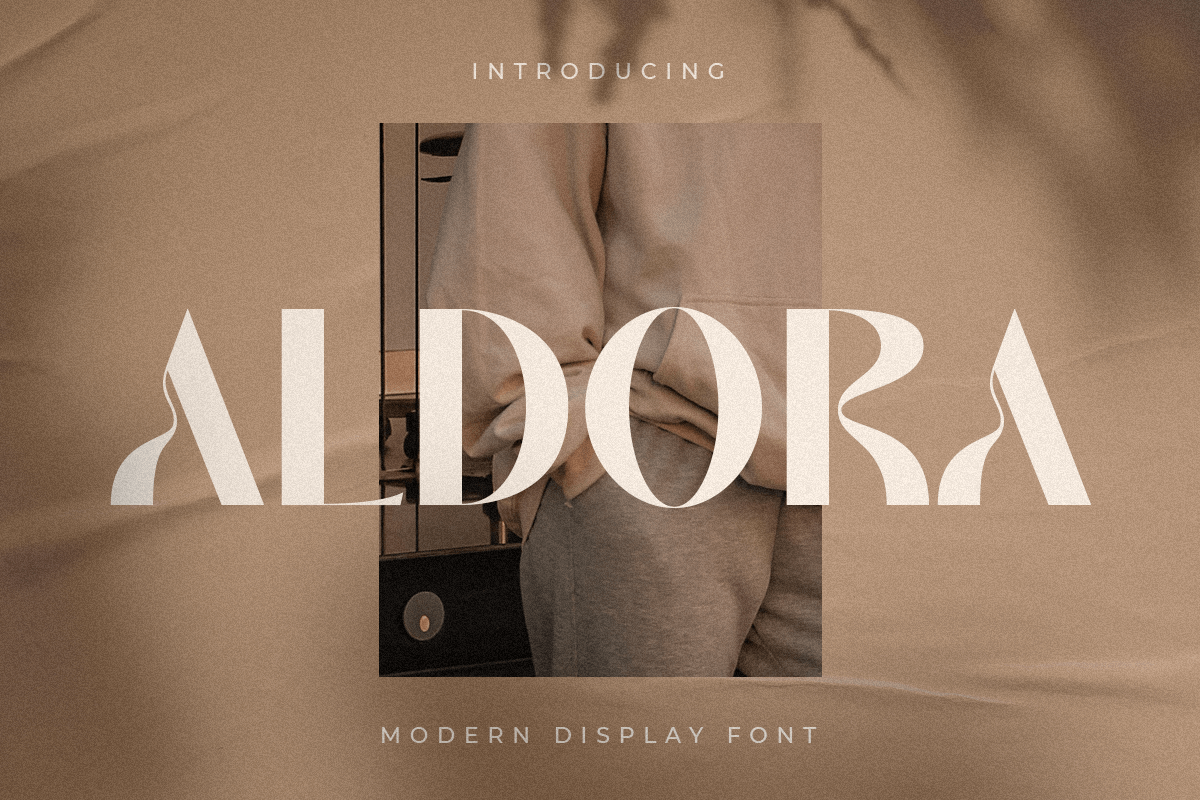
Aldora
A Modern Elegant Display Font that we created special for elegant and Fashion branding needs, with extra characters alternate in unique shape will be ready to add value of your brand. It so nice to leverage designer or product owner that need solutions to make their design look more classy and modern. And specially for this font, We prepared any alternate characters to help you create unlimited variations for your creative needs.
Any options to get creative variations (combination of Any Alternates)
Preview as a inspirations that you can do with Aldora font